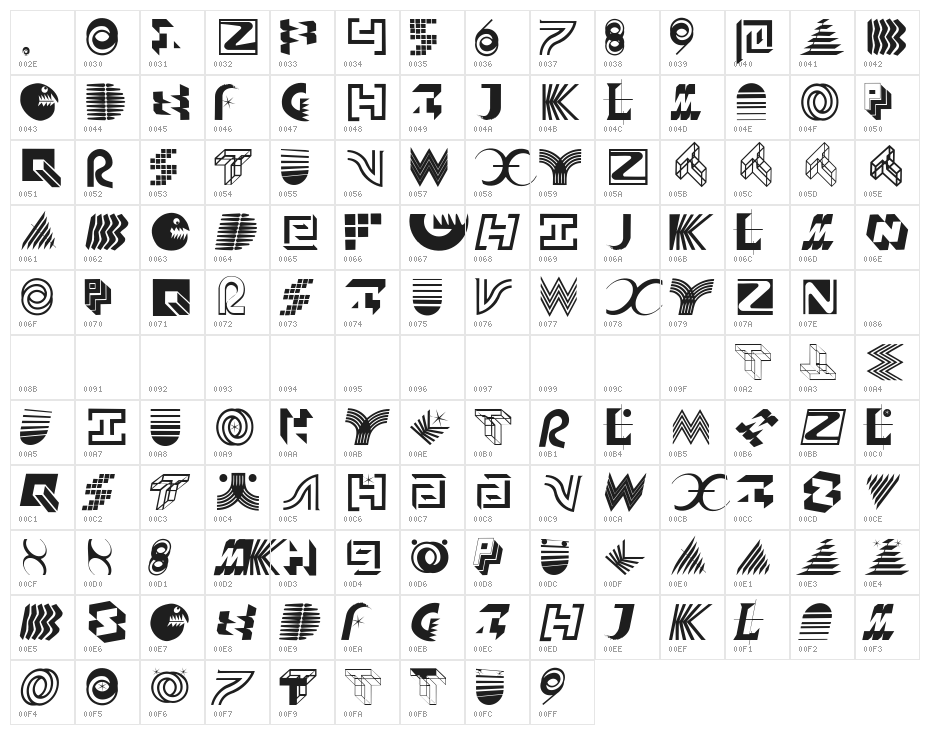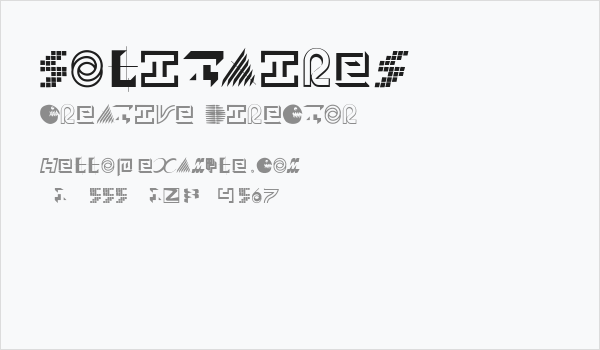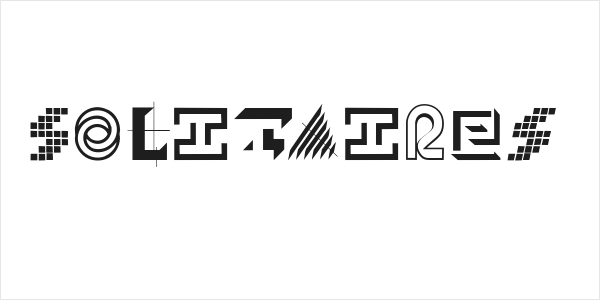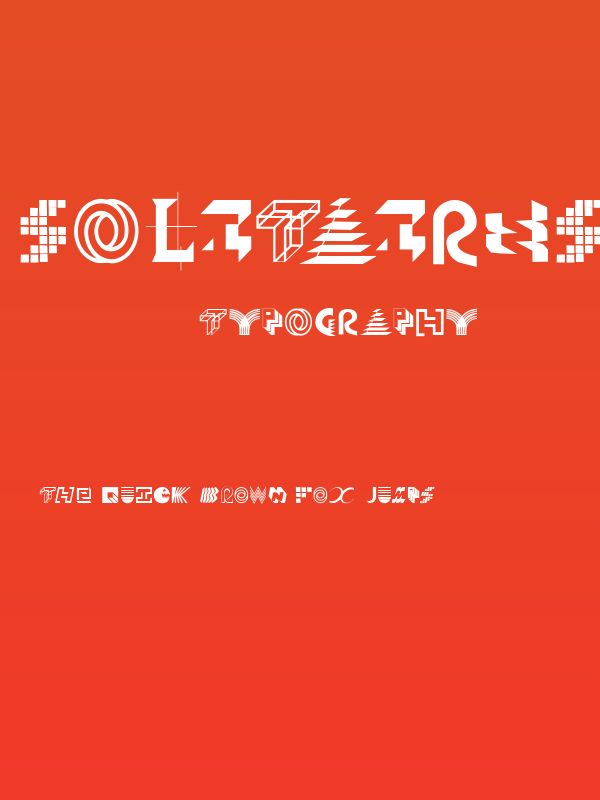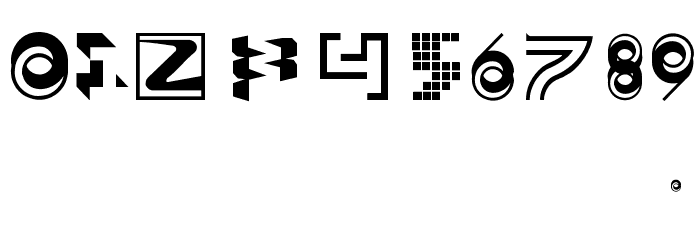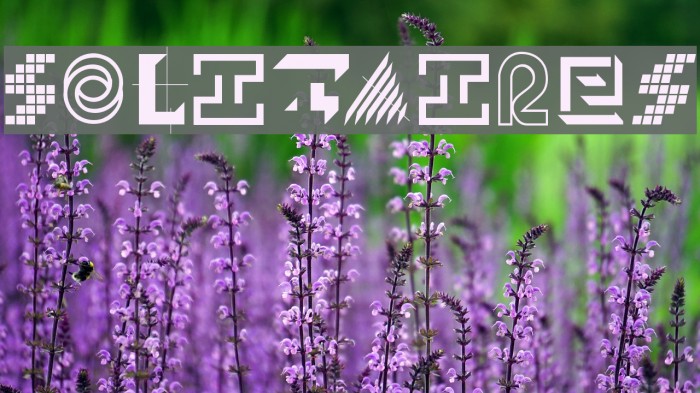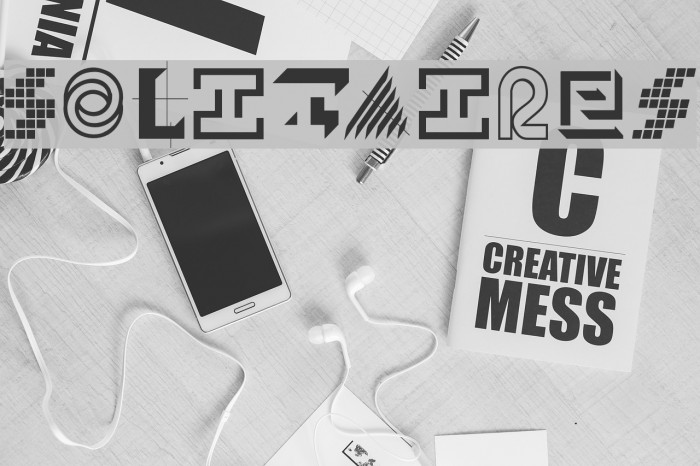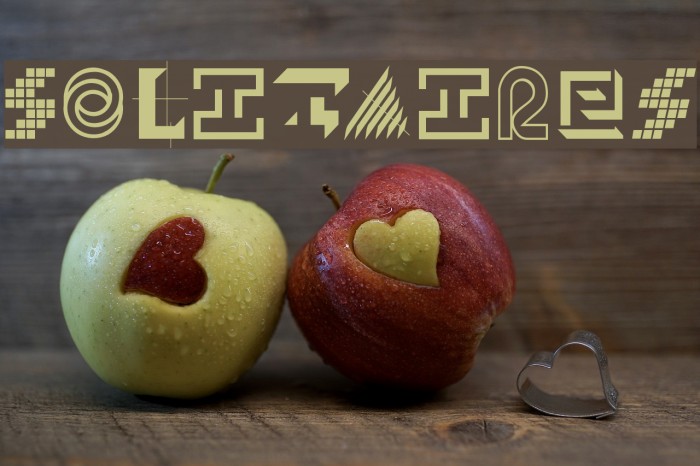
Solitaires Font
Solitaires Description
This font is a bold and dynamic display typeface characterized by its geometric and abstract forms. Each letter is uniquely designed with a combination of lines, shapes, and patterns that create a sense of movement and energy. The uppercase and lowercase letters share a consistent style, with elements like stripes, dots, and angular cuts adding to the visual interest. Numbers and special characters follow the same design principles, ensuring a cohesive look across all glyphs. The font's high contrast and decorative elements make it stand out, suitable for eye-catching designs.
| Proposed Projects | Ideal for posters, album covers, branding, and any project requiring a striking, modern aesthetic. |